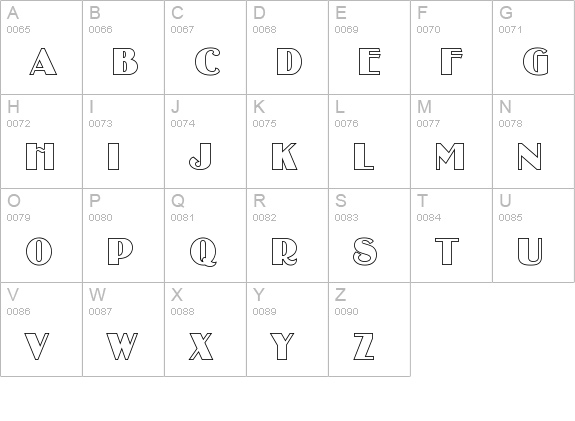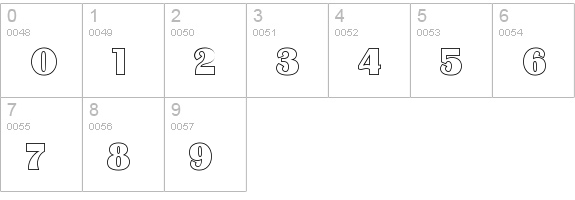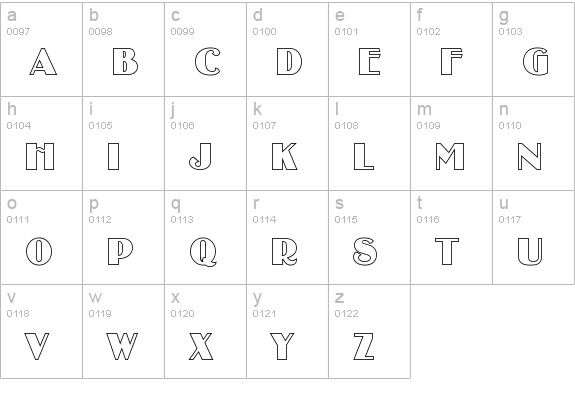
BinnerOutP Font Details
BinnerOutP font is a unique and modern typeface that is sure to make a statement in your design projects. With its bold and eye-catching letters, this font is perfect for headlines, logos, posters, and more. The sleek and stylish design of BinnerOutP font will add a touch of sophistication to any project. The best part? BinnerOutP font is completely free to download at FontsMarket.com. Whether you're a designer looking to add a new font to your collection or a business owner in need of a fresh look for your branding, BinnerOutP font is the perfect choice. Don't miss out on this fantastic opportunity to enhance your designs with this stunning font. Download BinnerOutP font today and take your projects to the next level!